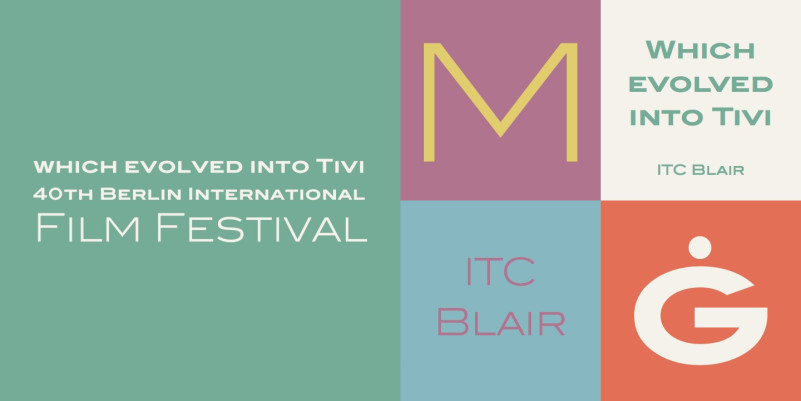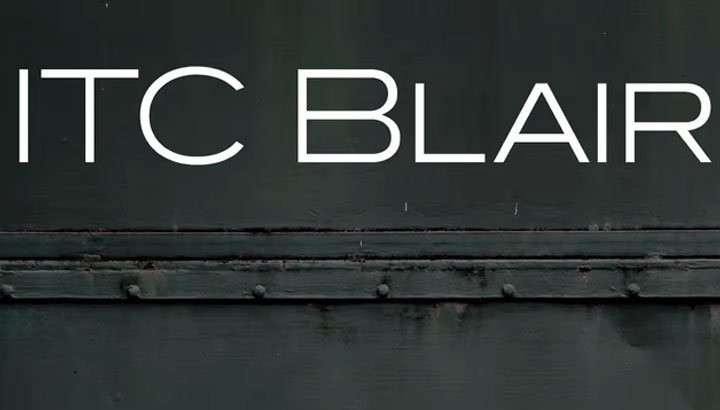
ITC Blair Font
The ITC Blair Sans Serif Font is a revival and reimaging of an early 20th century metal typeface of the same name. Even though only available as single weights of extended and condensed proportions, metal fonts of the face were sold well into the 1950s. In 1997, Jim Spiece resurrected the original extended design for digital imaging and, in the process, added two new weights. Almost 20 years later, he collaborated with Monotype type designers to extend the basic family again. The result was a new suite of three condensed designs and italic complements for all the roman weights. The family also benefits from a large set of alternative glyphs and many OpenType® features.